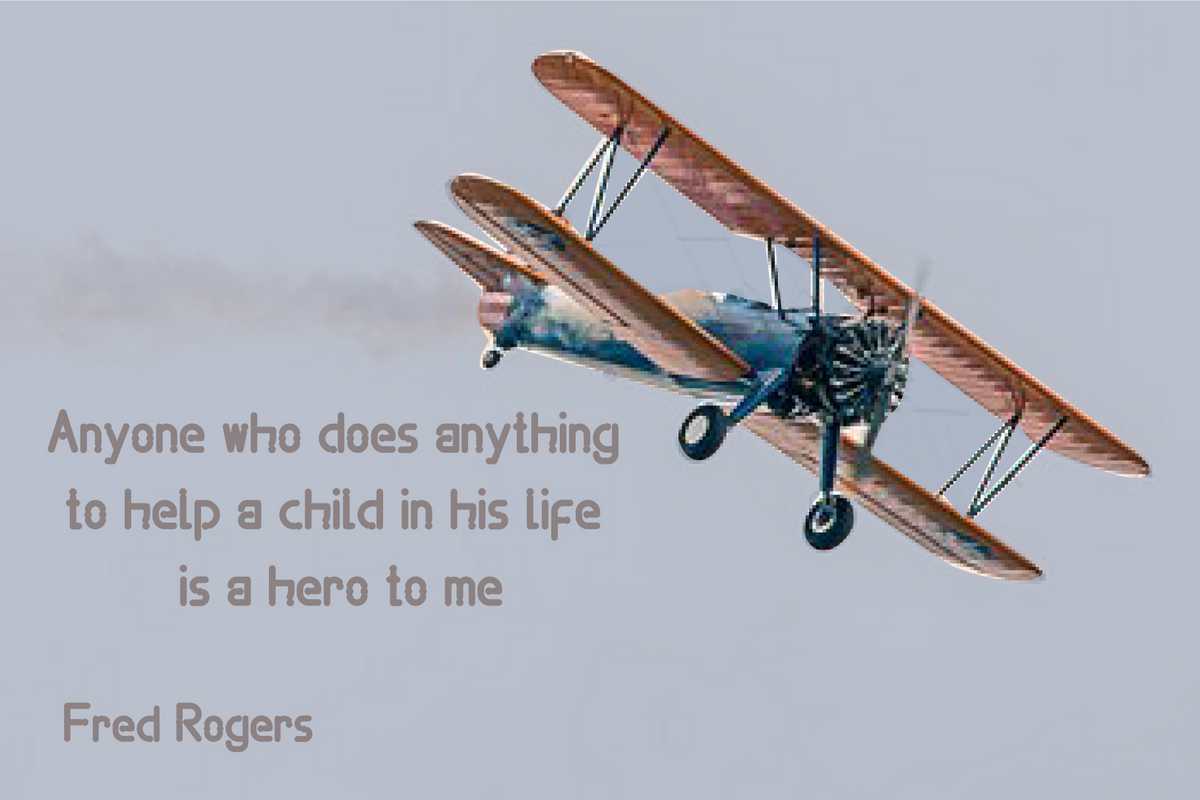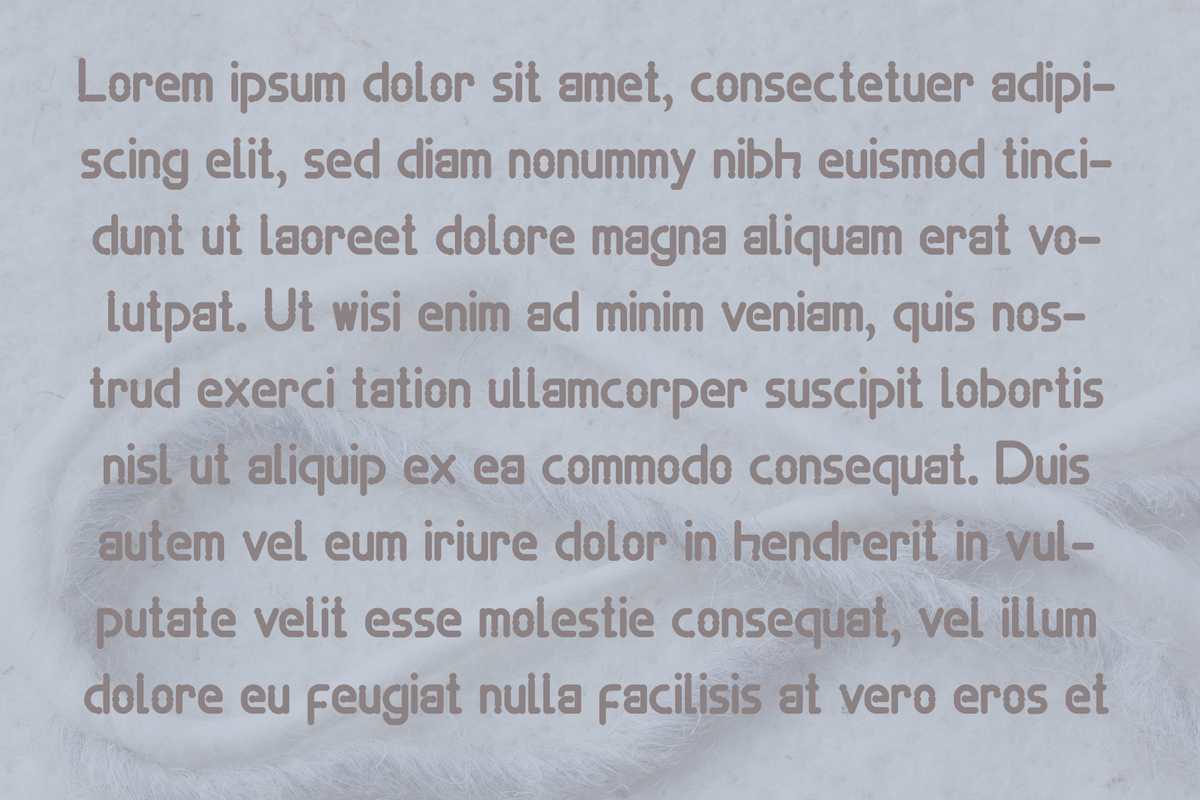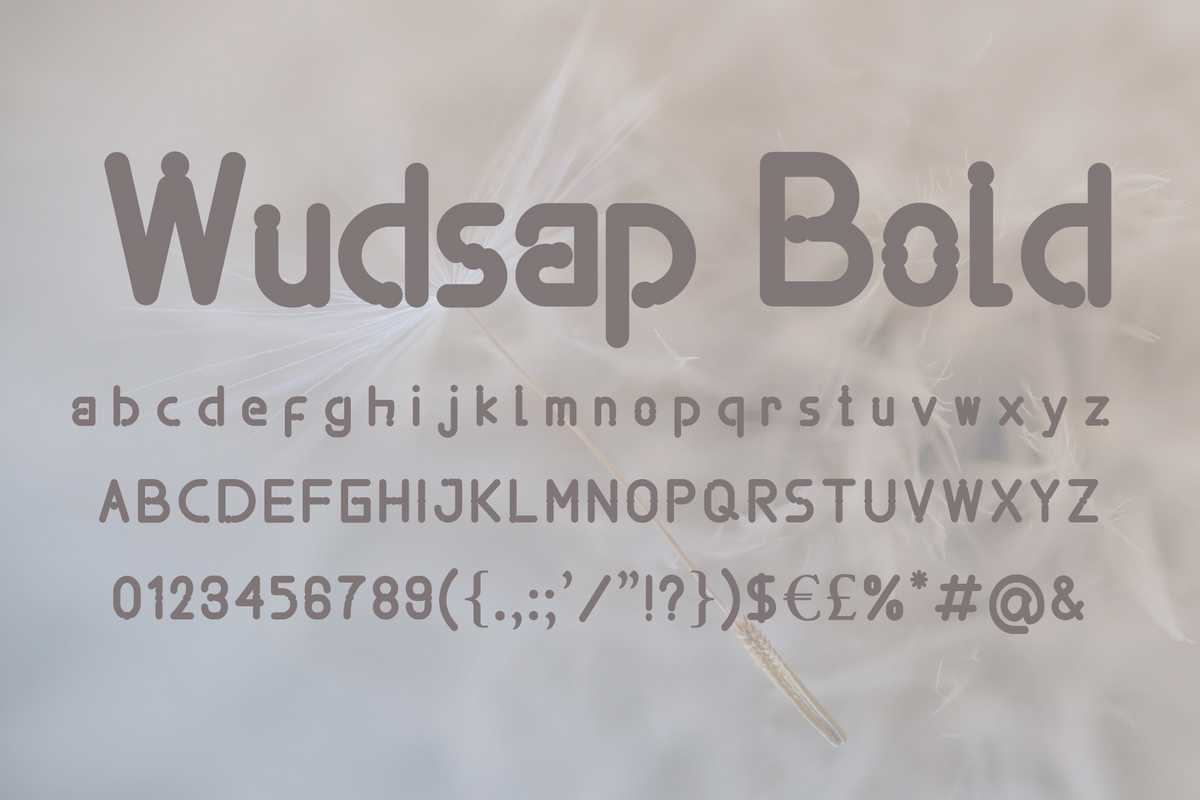
WudsapBoldChildrenFont.SetOfMulticoloredBrightLettersFrinscript和YourDesign.VectorillInstruction.Isolatedonwhitebackground.WudsapBoldChildrenFont.SetOfMulticoloredBrightLettersFrinscript和YourDesign.VectorillInstruction.Isolatedonwhitebackground。